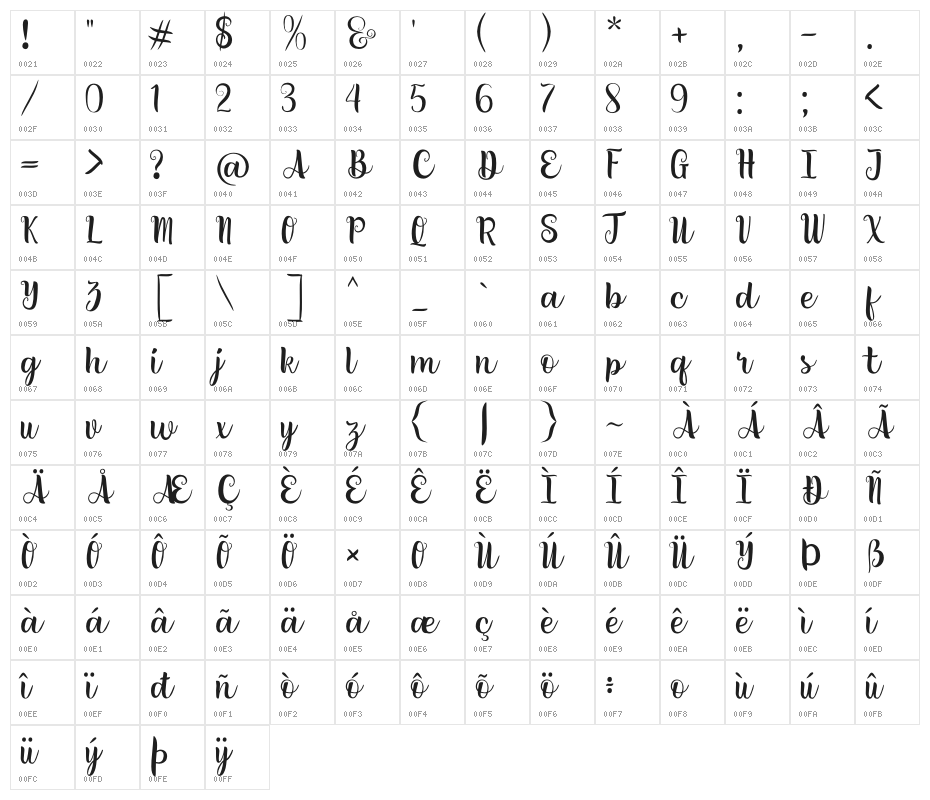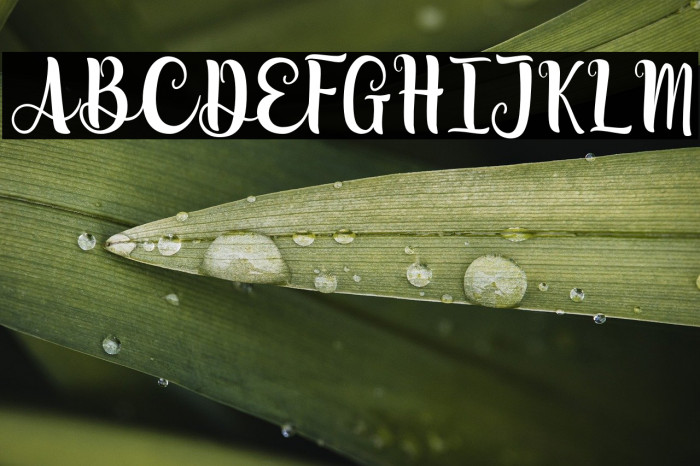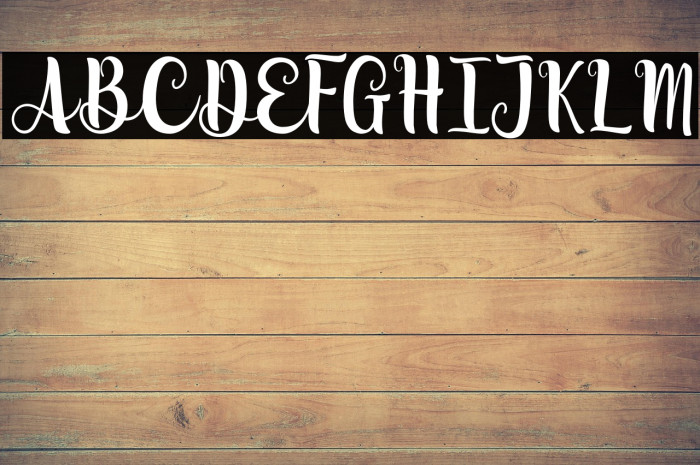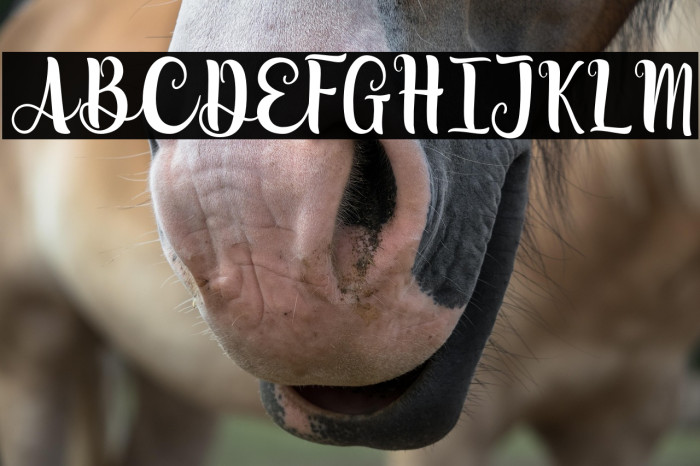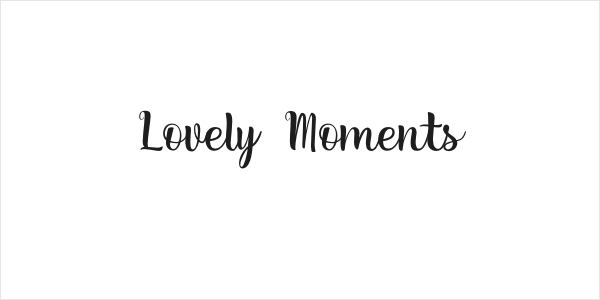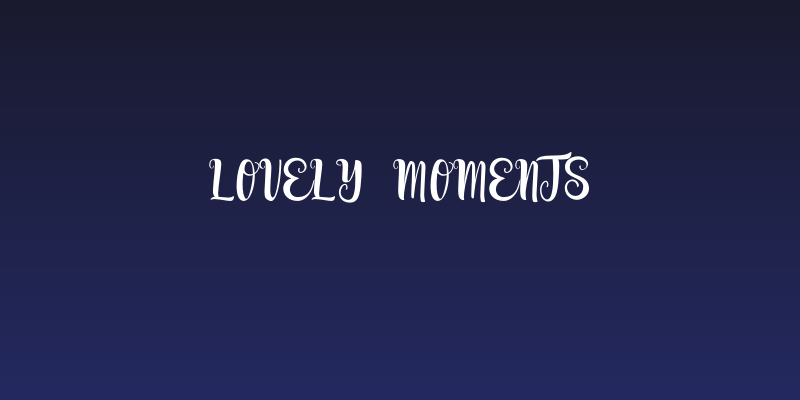
Lovely Moments Font
Lovely Moments Description
This font features a playful and elegant script style, characterized by its flowing, cursive letters that exude a sense of whimsy and charm. The uppercase letters are bold and decorative, with intricate loops and swirls that add a touch of sophistication. The lowercase letters maintain a consistent style, with smooth curves and a slightly informal appearance. The numerals are stylish and harmonize well with the overall design, while the special characters are crafted to match the font's unique aesthetic. This font is perfect for projects that require a personal and artistic touch.